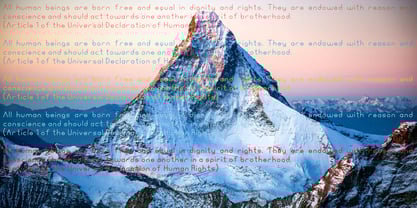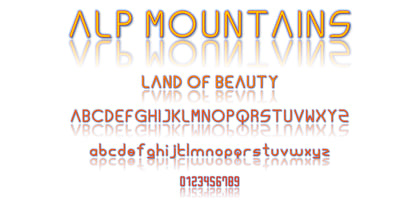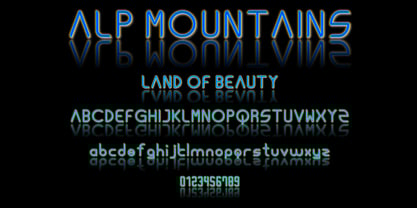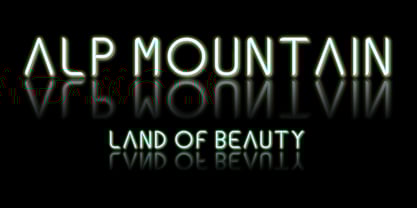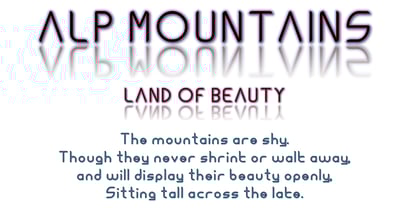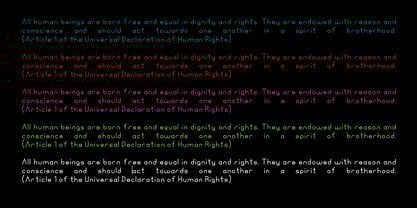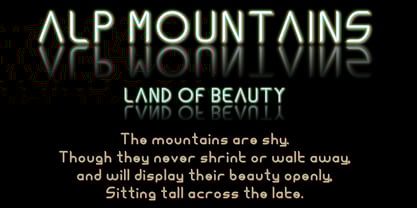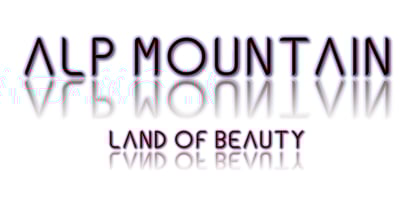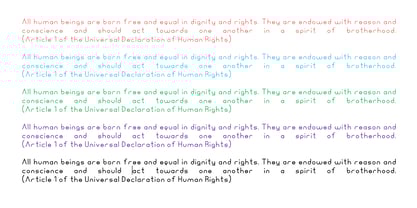
Ongunkan Alps Thin
by Latin World Tamgacı
The Ongunkan Alps Thin Font Family was designed by Osman Husseini, Osman Nuri ALKAN and published by Latin World Tamgacı. Ongunkan Alps Thin contains 1 styles. More about this family
With this font, which I named Alps, I have created a simple and fantastic font that you can use in your various works by glorifying and developing the art of writing.